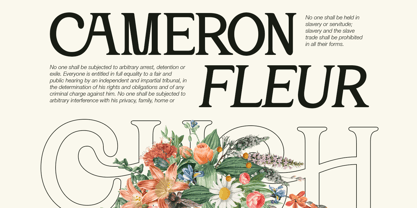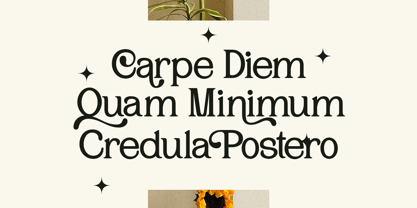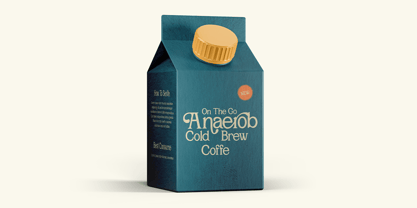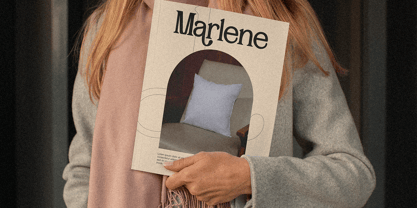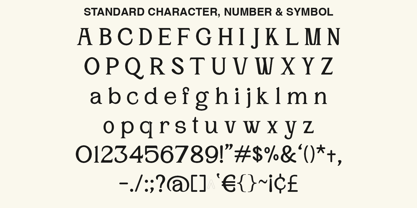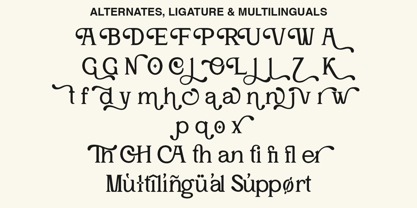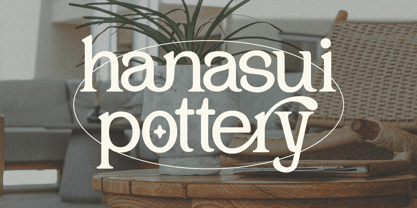
Cloudly
by Qweera Studio
The Cloudly Font Family was designed by Idhham Cholid Rikzano Yahya and published by Qweera Studio. Cloudly contains 2 styles and family package options.
Cloudly Font – A retro decorative serif typeface with unique, stylish features. Available in both regular and italic versions, it includes alternates and ligatures to give users creative flexibility in their designs. Perfect for posters, magazines, branding, and print projects, Cloudly adds a vintage yet modern touch to any artwork. This font is an ideal choice for designers seeking a bold and decorative aesthetic.
• Regular & Italic
• All Multilingual symbol
• Opentype features ( ligature, alternate )
Multilingual character supports : (Afrikaans, Albanian, Catalan, Croatian, Czech, Danish, Dutch, English, Estonian, Finnish, French, German, Hungarian, Icelandic, Italian, Lithuanian, Maltese, Norwegian, Polish, Portuguese, Slovenian, Spanish, Swedish, Turkish, Zulu)